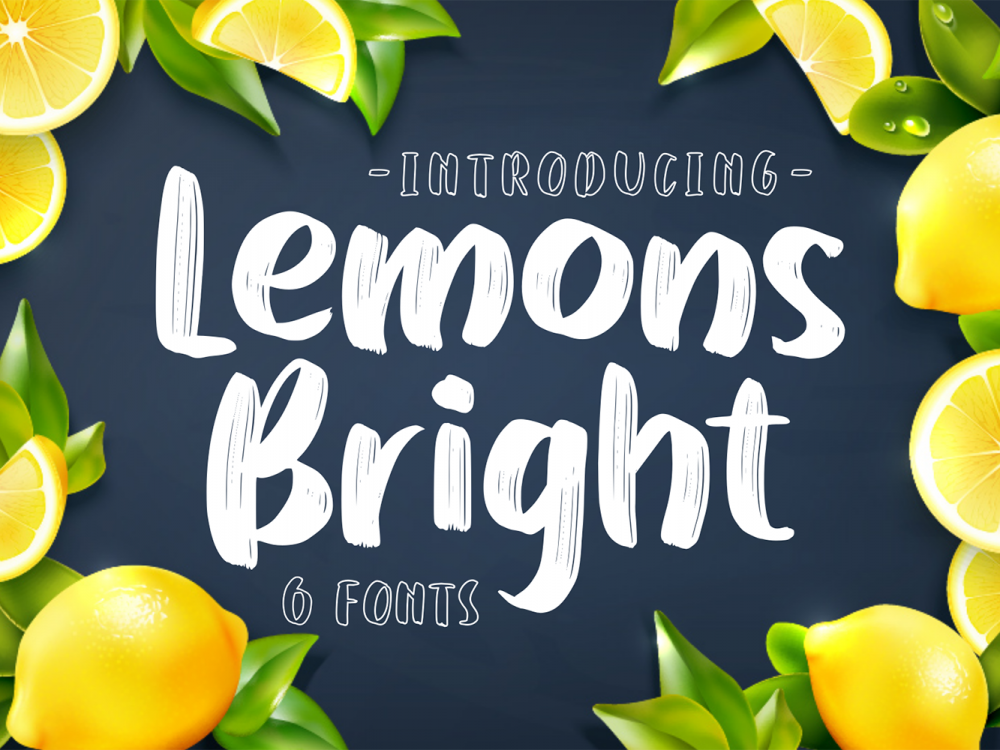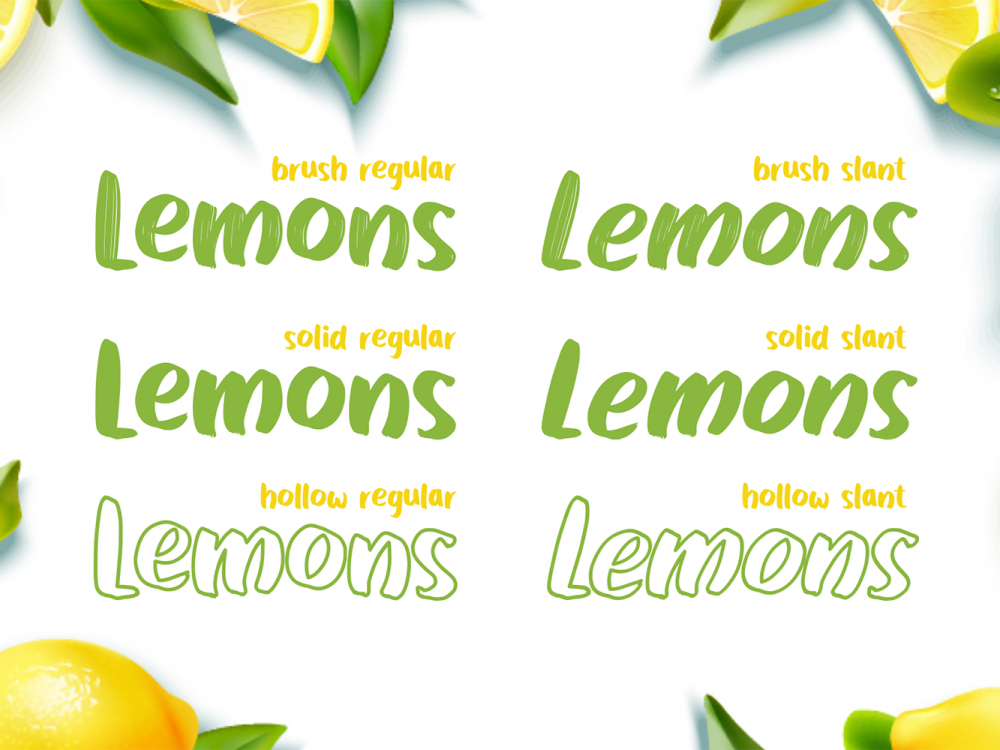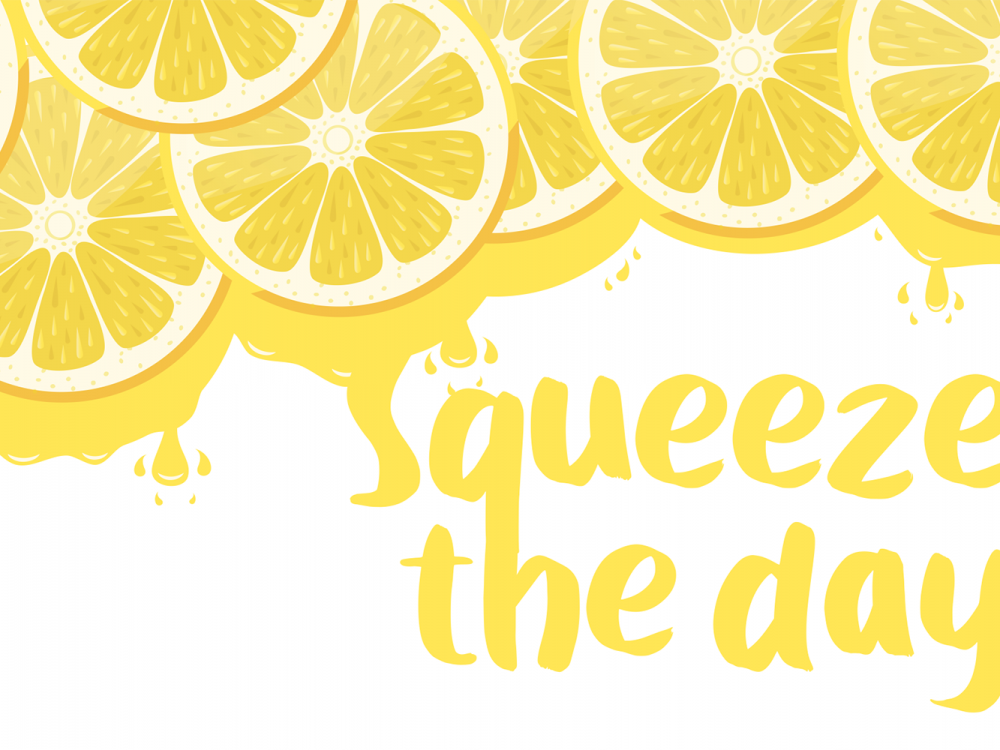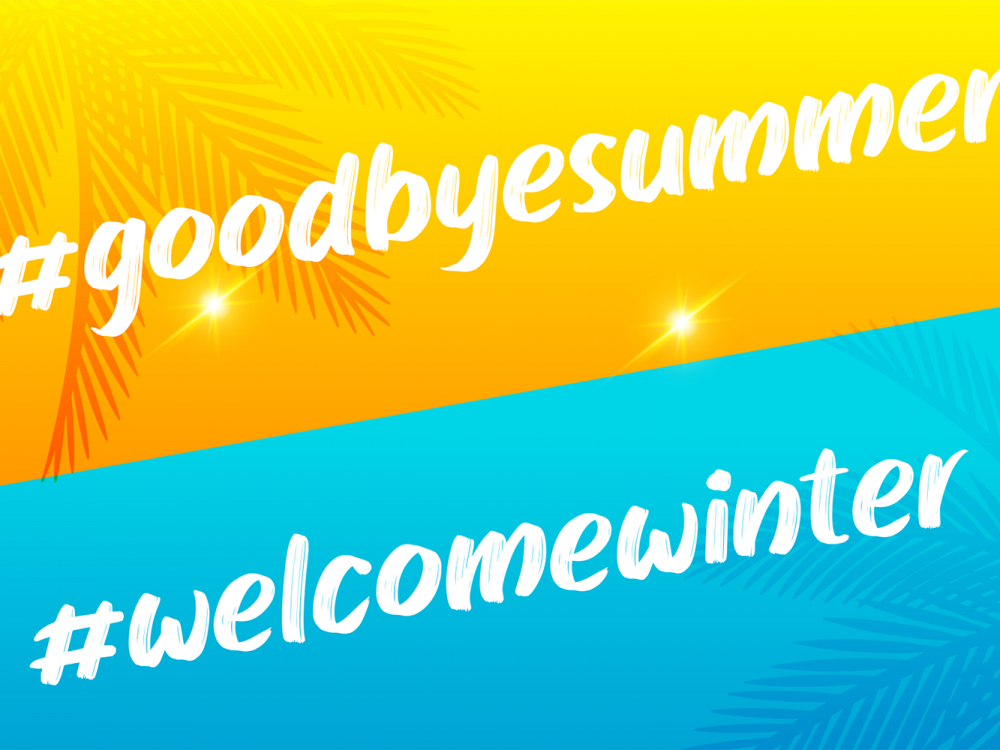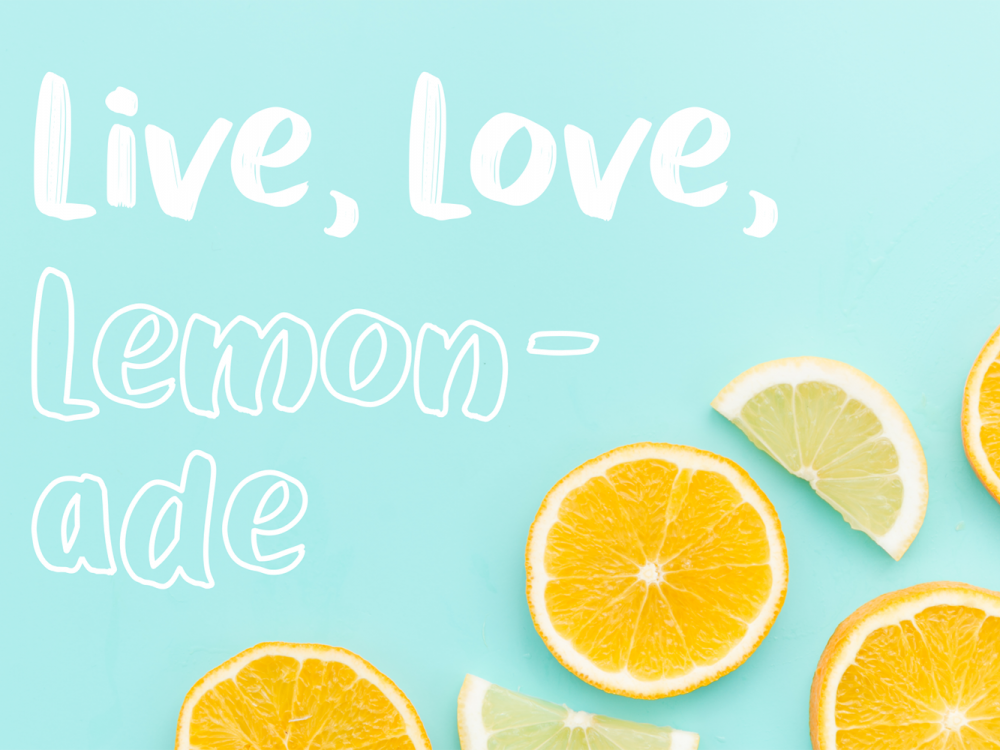
Lemons Bright Free Font
Lemons Bright Free Font is a scripted handwritten font that mimics brush writing and has an elegant style. This font is suitable for creating various design projects that require a modern scripting font. You can use this font to create memorable posters, wedding invitations, cards, branding, flyers, and more. Improve the quality and increase the popularity of your design projects by using this font. If you like it don’t forget to check out the full version.